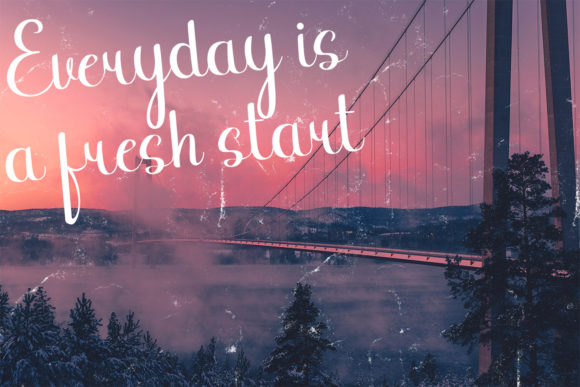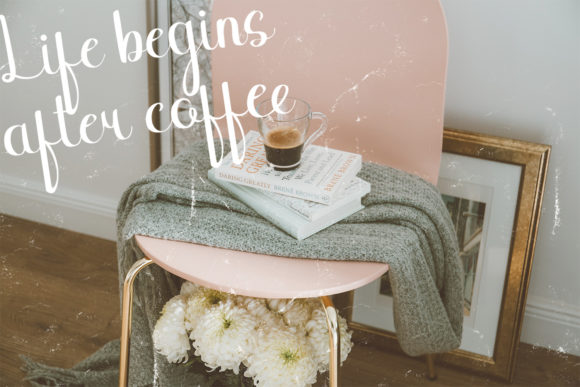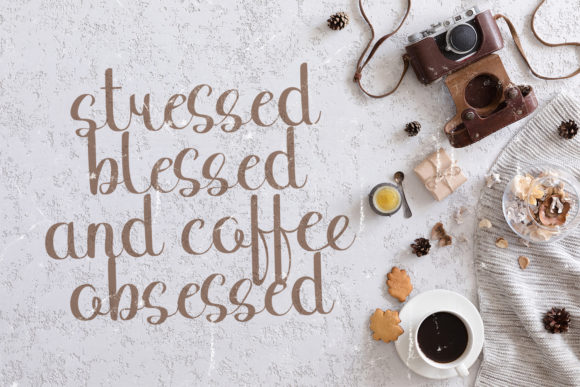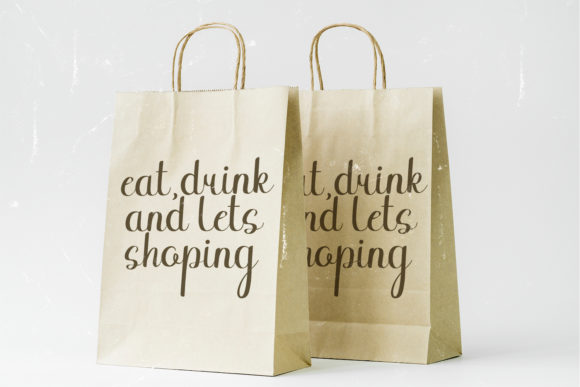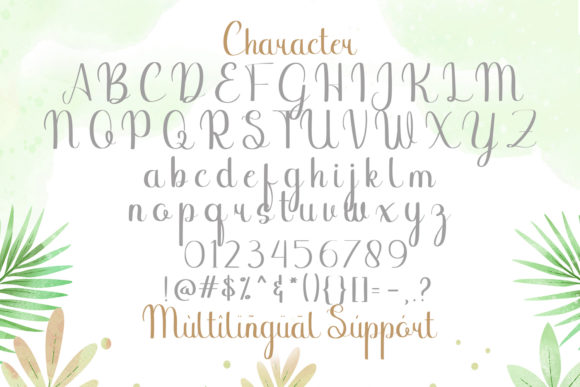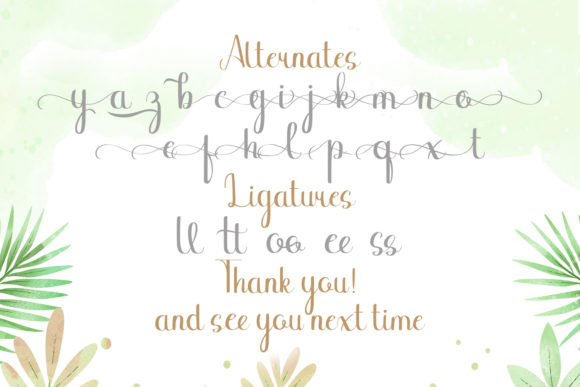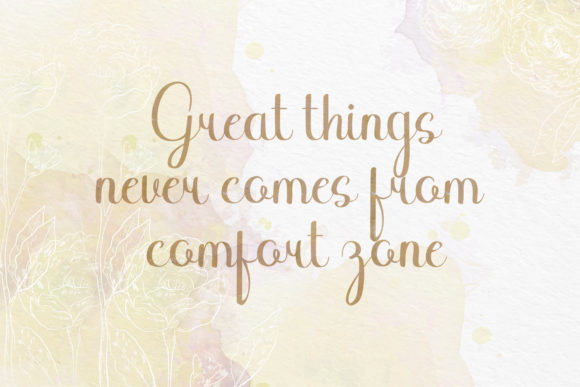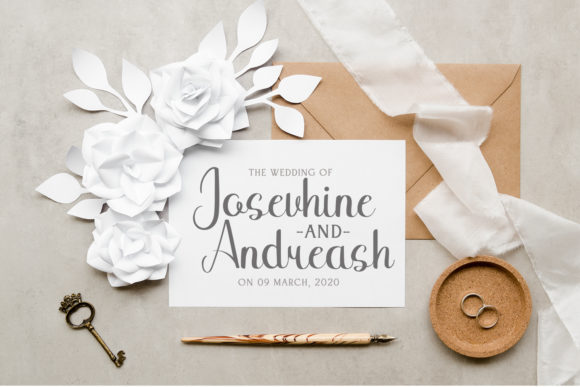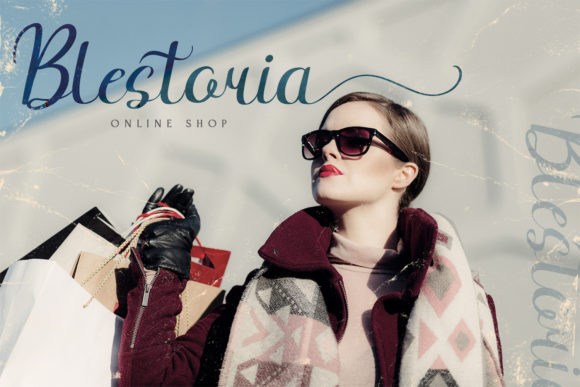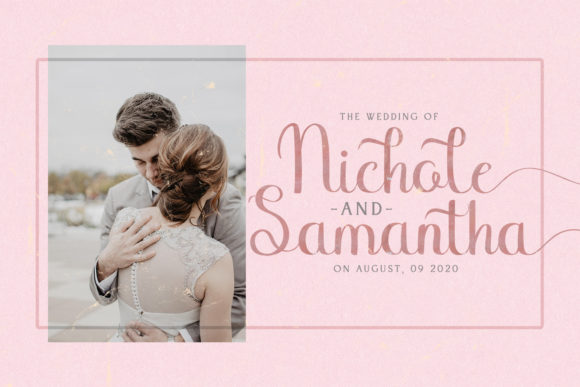
Binttang Selfianto Font
About Binttang Selfianto Font
Binttang Selfianto is a beautiful script font. Whether you’re looking for fonts for calligraphy scripts for DIY projects, Binttang Selfianto will turn any creative idea into a true piece of art!